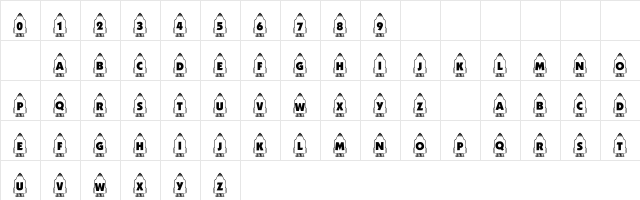
101! Countdown ta Blast Off! Regular
Design Context for 101! Countdown ta Blast Off! Typeface
101! Countdown ta Blast Off! is a composed and adaptable typeface that performs quietly and consistently across a wide range of design contexts.